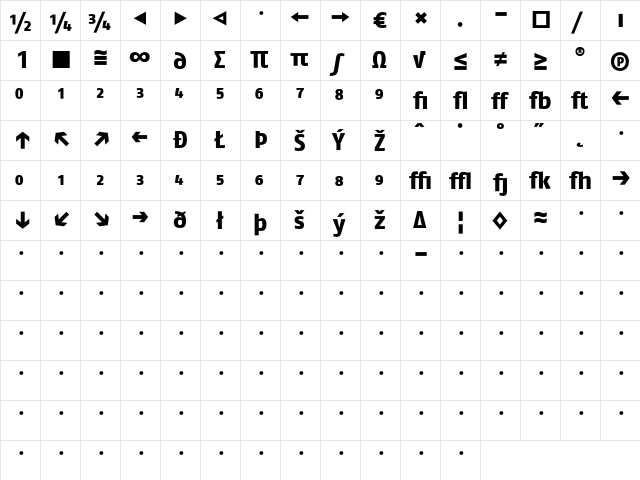
FagoNo-ExtraBoldExpert Bold
Design Context for FagoNo-ExtraBoldExpert Typeface
FagoNo-ExtraBoldExpert offers clean, dependable letterforms without strong stylistic allegiance, making it a practical choice for designers who need flexibility. Its bold stroke weight gives it real presence on the page.